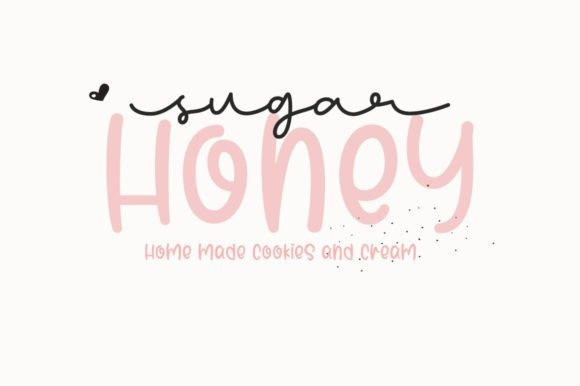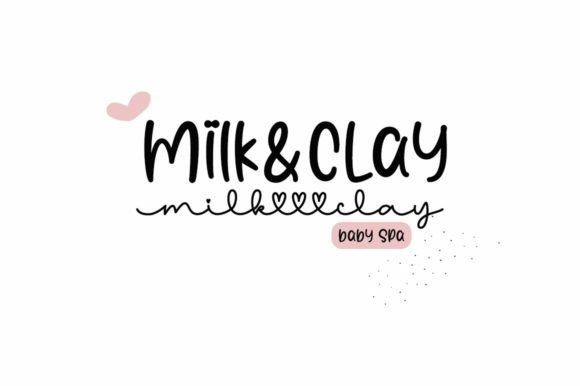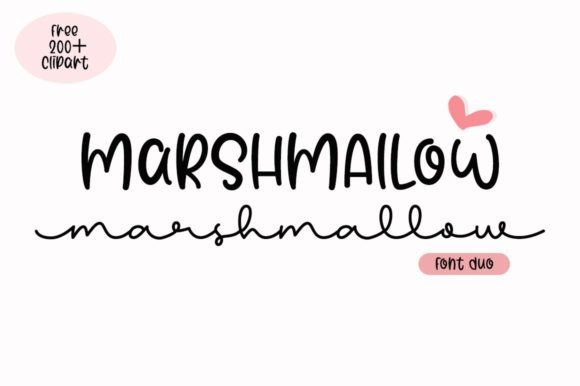
Marshmallow Font Duo
Marshmallow Font Duo is a versatile duo font (handwritten sans serif and monoline script). It will add a luxury spark to any design project that you wish to create! This font is PUA encoded which means you can access all of the amazing glyphs and ligatures with ease!